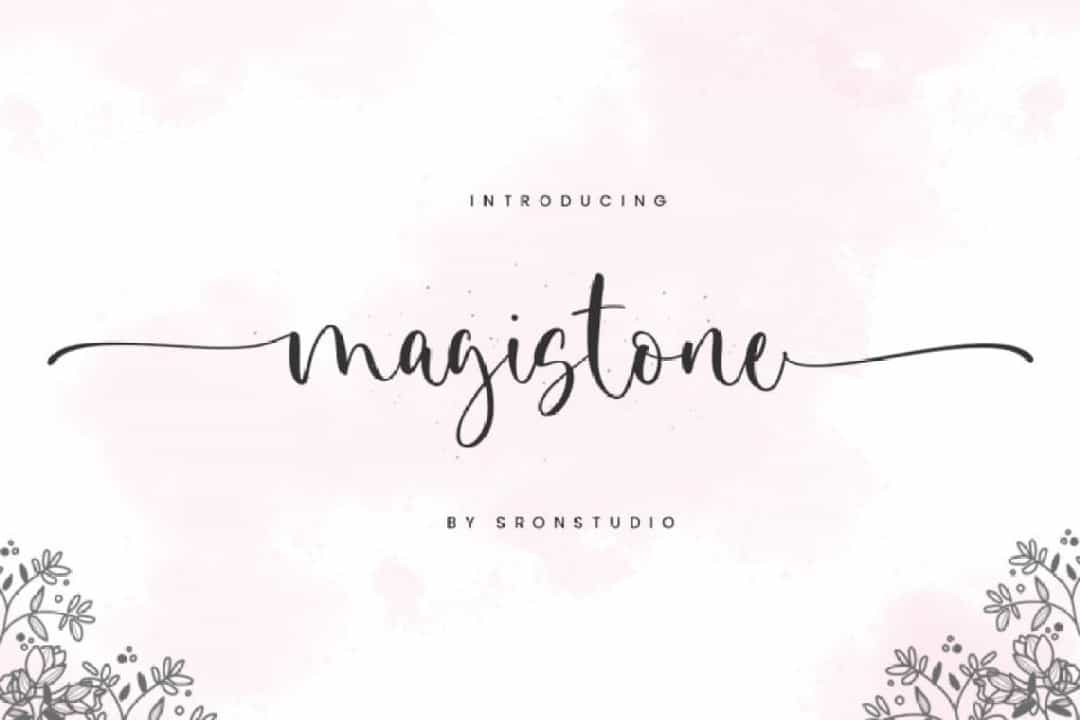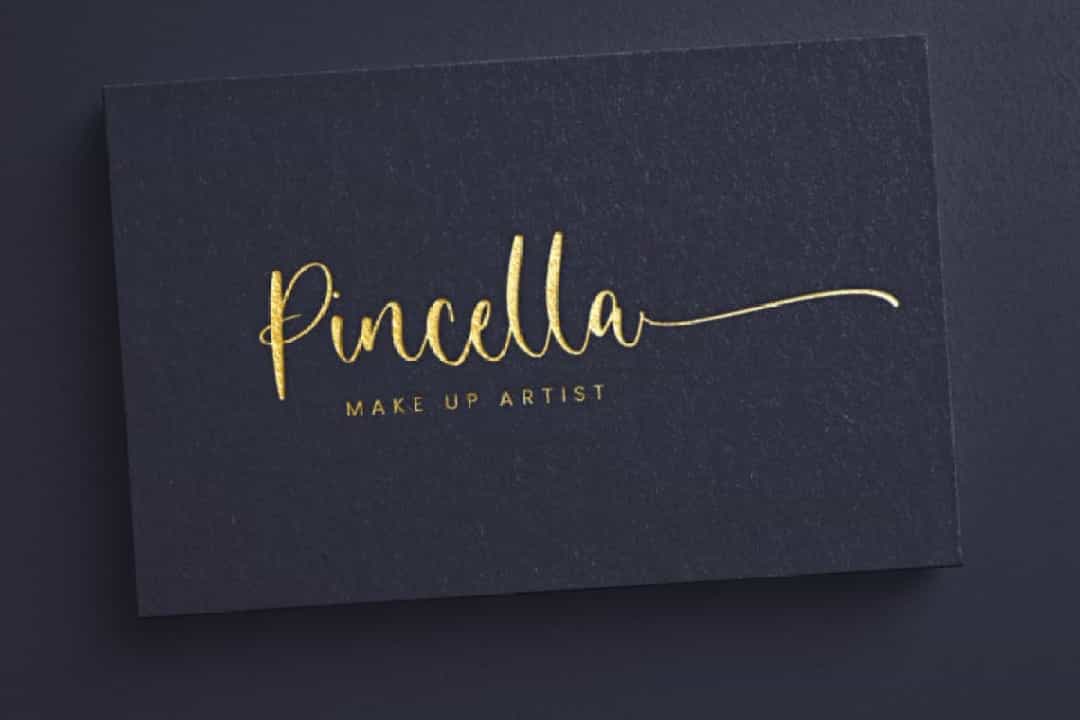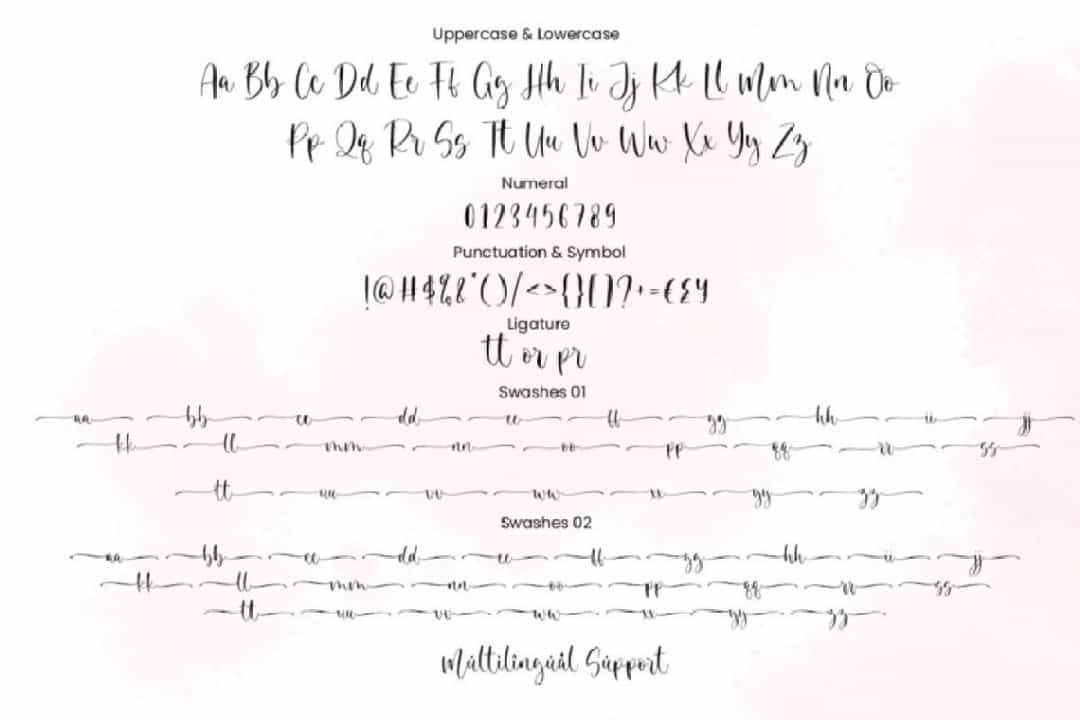
Discover Magistone Lovely Calligraphy Script Font, part of the Calligraphy Script collection—a versatile and unique font perfect for adding a personal touch to your projects. Download it for free and enjoy crafting designs with style, from invitations to social media posts. This font is available exclusively for personal use, giving you the freedom to create without limits. Unlock your creativity with Magistone Lovely Calligraphy Script Font today!
Magistone can be applied for exquisite calligraphy purposes which is suitable for designing invitations, stationery, wedding items, and branded social networks. In addition, Magistone is a perfect advertising tool and packaging for products labels; product designs; photography watermark occasions or any other purpose that requires calligraphic fonts.